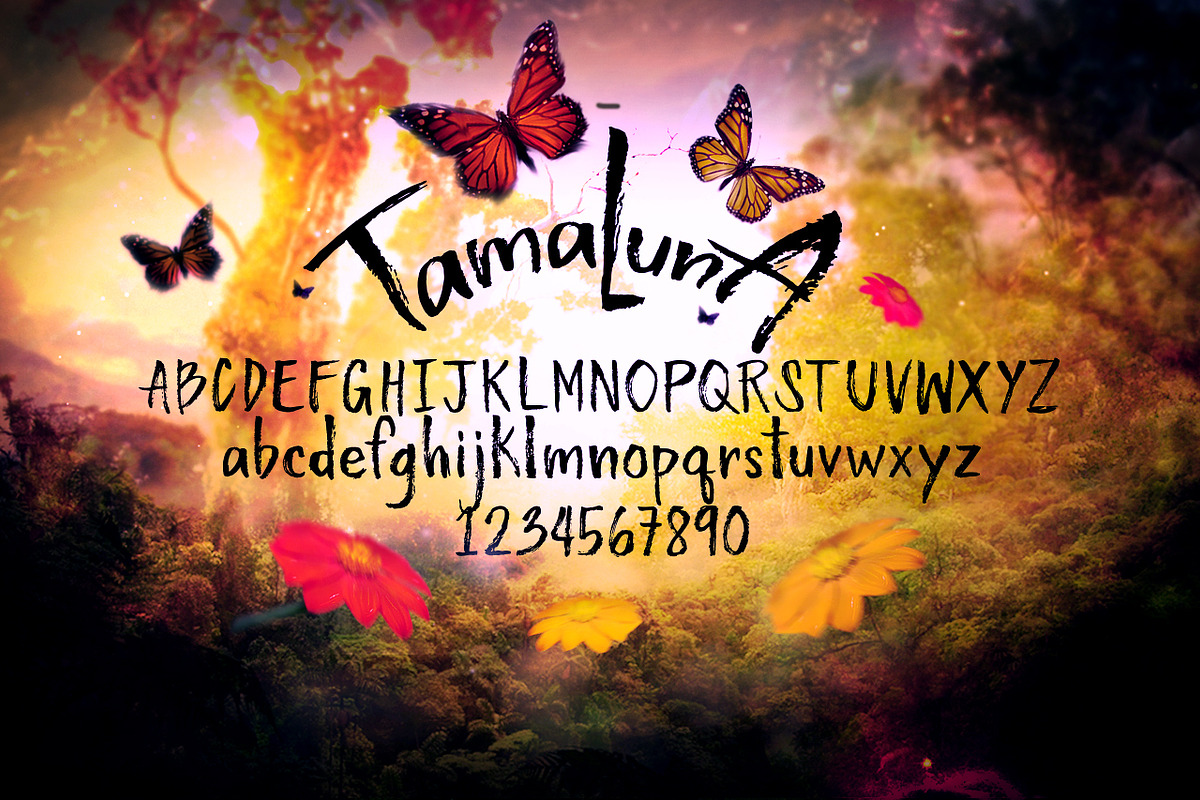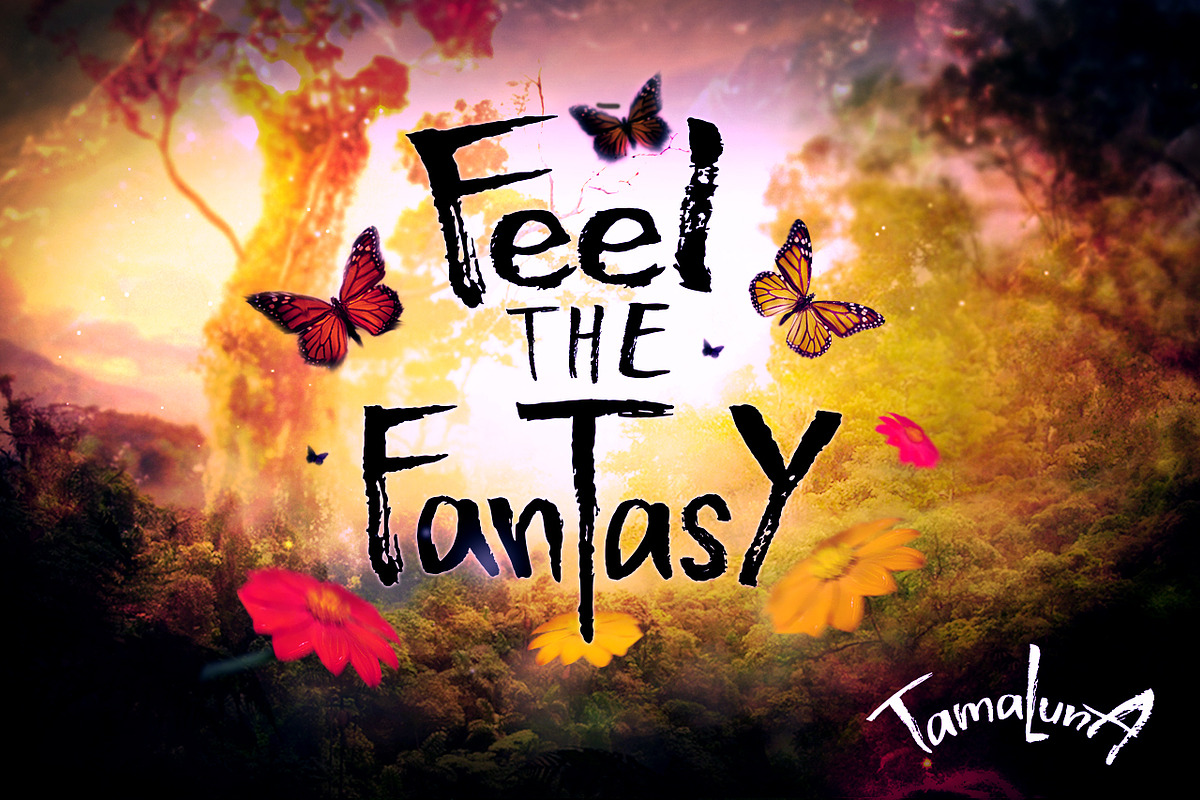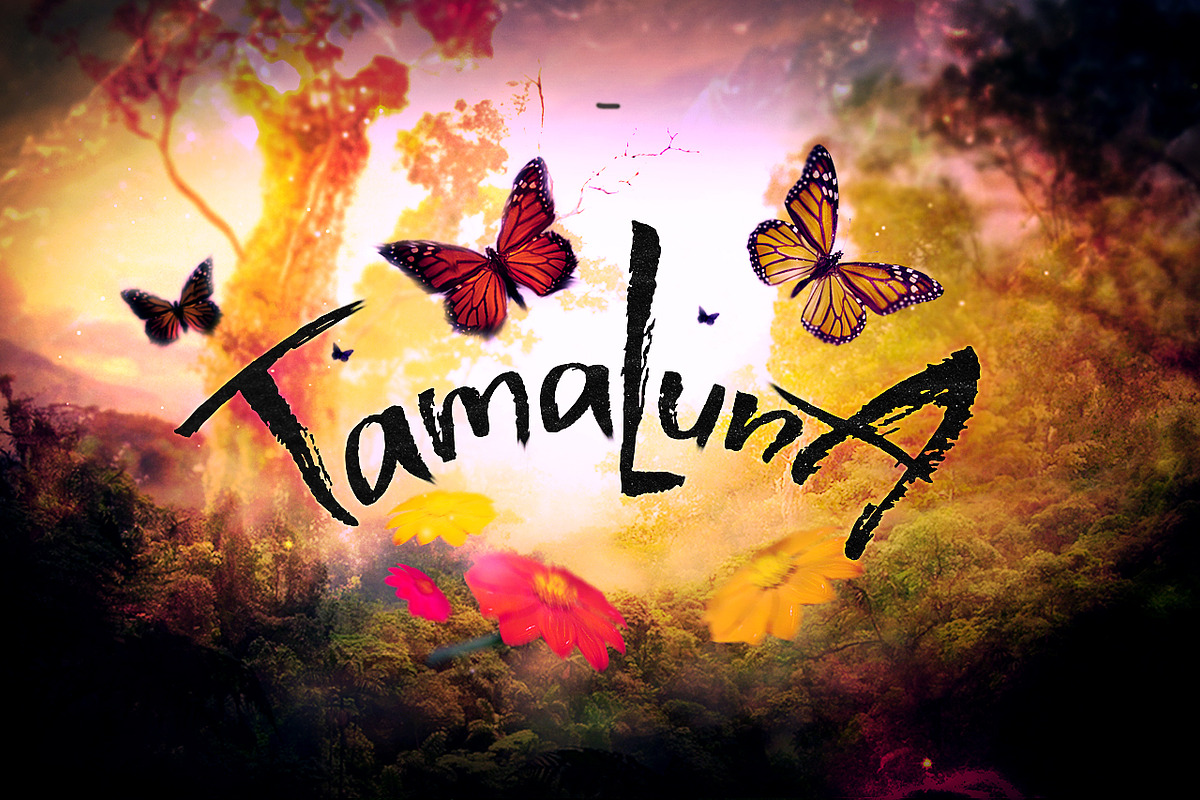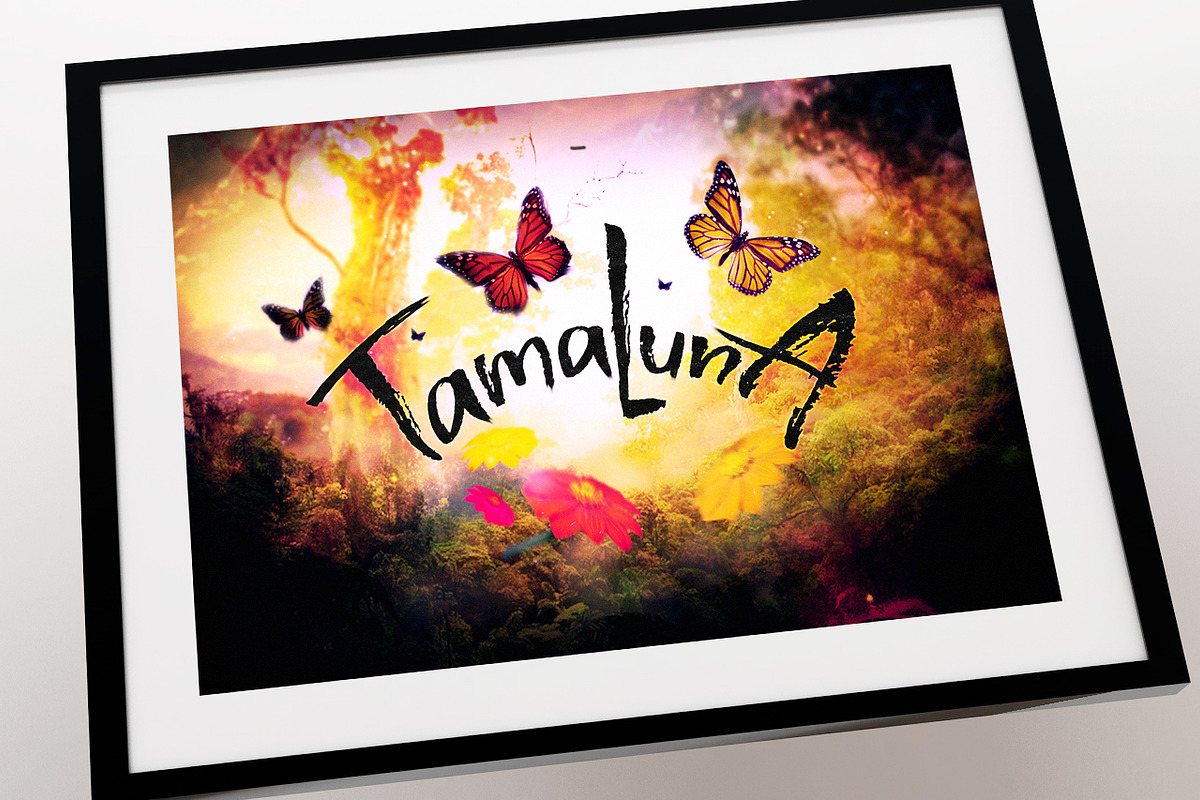
Tamaluna - Typeface
Tamaluna - Typeface by Layerform Design Co. is a font selected for branding, posters, packaging, typography.
- Tamaluna comes with 95 handcrafted characters, with plans for mutilingual support scheduled for the future!
Tamaluna - Typeface by Layerform Design Co. fits naturally into Branding, posters, packaging, typography.